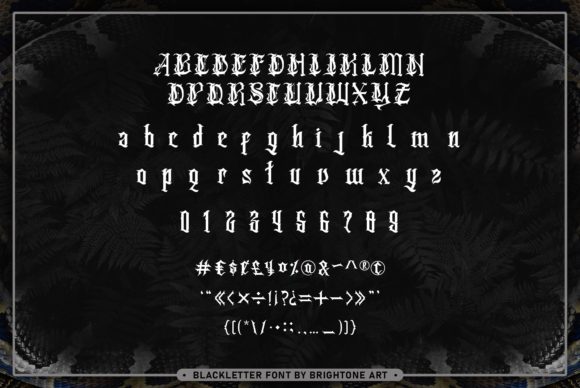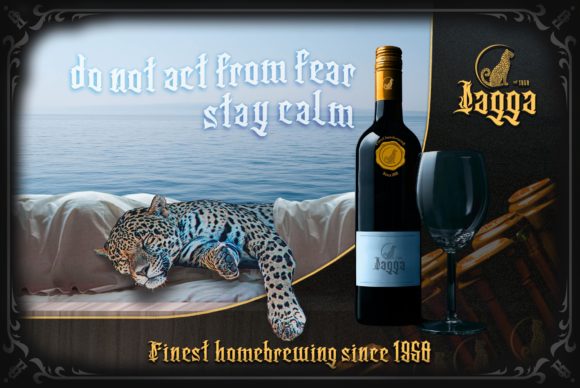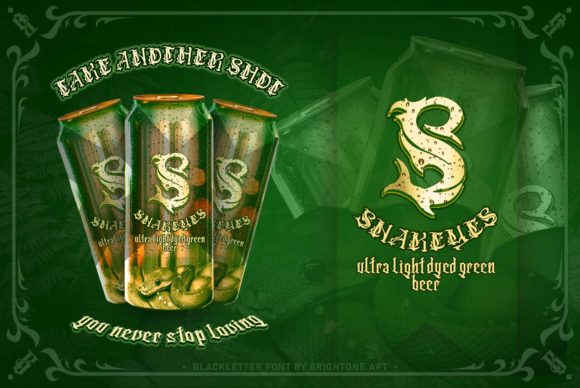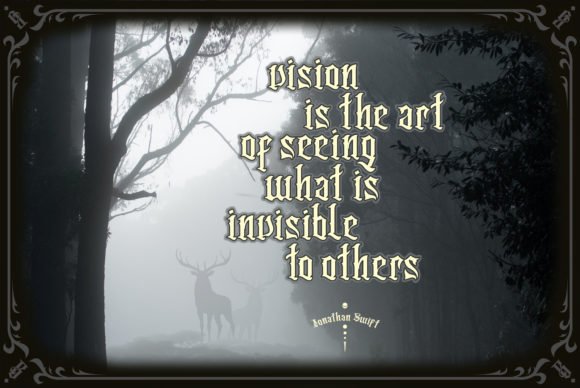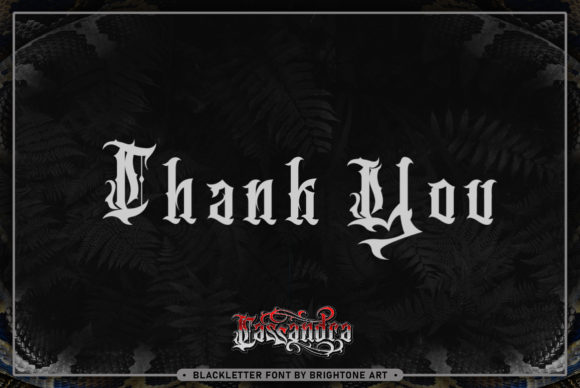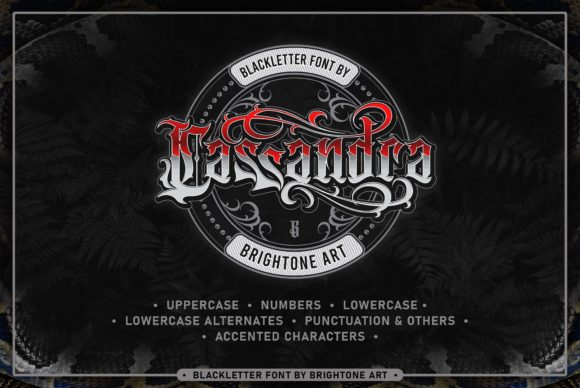
Cassandra Font: The Bold and Authentic Blackletter Font for Your Formal Designs
In the world of typography, fonts play a crucial role in conveying the tone and personality of a design. For designers and crafters looking to add a touch of assertiveness and sophistication to their formal designs, the Cassandra font is an excellent choice. This bold and authentic blackletter font is sure to make your designs stand out from the crowd.
What is Cassandra Font?
Cassandra is a blackletter font that exudes confidence and elegance. Its bold and dramatic strokes are perfect for creating eye-catching designs that demand attention. The font’s authentic blackletter style gives it a sense of tradition and heritage, making it ideal for formal designs such as certificates, invitations, and logos.
Key Features of Cassandra Font
- Bold and Assertive: Cassandra’s bold strokes and dramatic flair make it a perfect choice for designs that require a strong and assertive presence.
- Authentic Blackletter Style: The font’s authentic blackletter style gives it a sense of tradition and heritage, making it perfect for formal designs.
- Highly Legible: Despite its bold strokes, Cassandra is highly legible, making it easy to read and understand.
- Versatile: The font is versatile and can be used for a variety of design projects, from logos and certificates to invitations and more.
How to Use Cassandra Font in Your Designs
Using Cassandra font in your designs is easy. Here are a few tips to get you started:
- Pair it with a Simple Font: Pair Cassandra with a simple font to create a striking contrast and add visual interest to your design.
- Use it for Headings: Use Cassandra for headings and titles to add a touch of elegance and sophistication to your design.
- Experiment with Colors: Experiment with different colors to find the perfect combination that works with your design.
Benefits of Using Cassandra Font
There are several benefits to using Cassandra font in your designs. Here are a few:
- Instantly Stand Out: Cassandra’s bold and assertive style will instantly make your designs stand out from the crowd.
- Adds Elegance and Sophistication: The font’s authentic blackletter style adds a touch of elegance and sophistication to your designs.
- Perfect for Formal Designs: Cassandra is perfect for formal designs such as certificates, invitations, and logos.
Who Can Benefit from Using Cassandra Font?
Cassandra font is perfect for designers and crafters who:
- Specialize in Formal Designs: Designers who specialize in formal designs such as certificates, invitations, and logos will love Cassandra’s bold and authentic style.
- Want to Add a Touch of Elegance: Designers who want to add a touch of elegance and sophistication to their designs will find Cassandra to be an excellent choice.
- Need a Versatile Font: Designers who need a versatile font that can be used for a variety of design projects will appreciate Cassandra’s flexibility.
In conclusion, Cassandra font is a bold and authentic blackletter font that is perfect for formal designs. Its assertive style and elegant strokes make it an excellent choice for designers and crafters looking to add a touch of sophistication to their designs. With its versatility, legibility, and bold style, Cassandra is sure to make your designs stand out from the crowd.